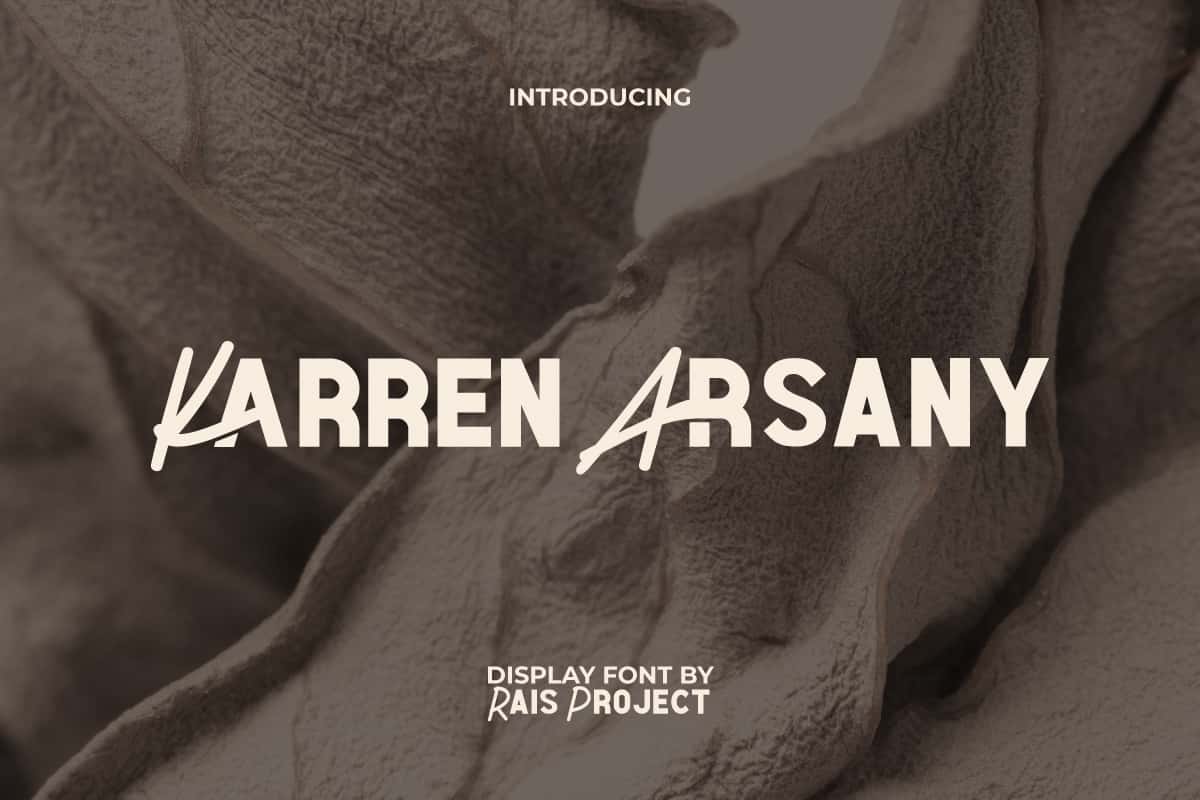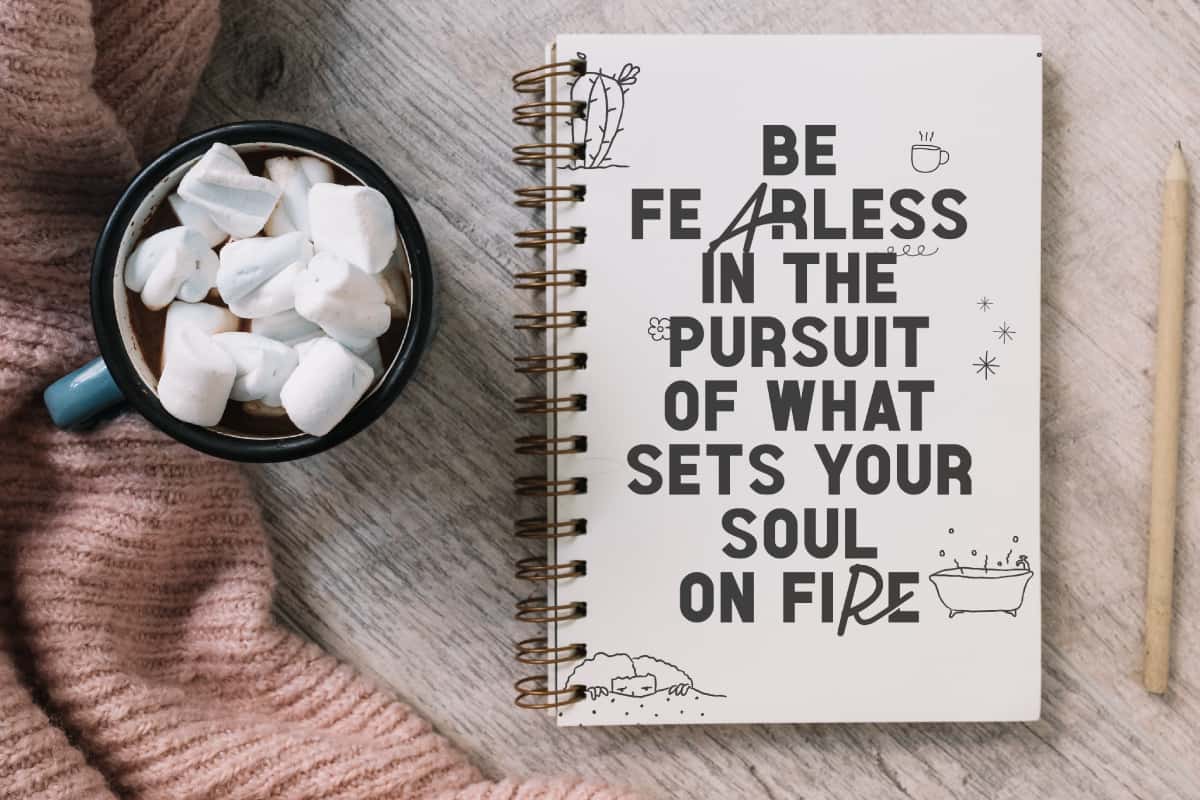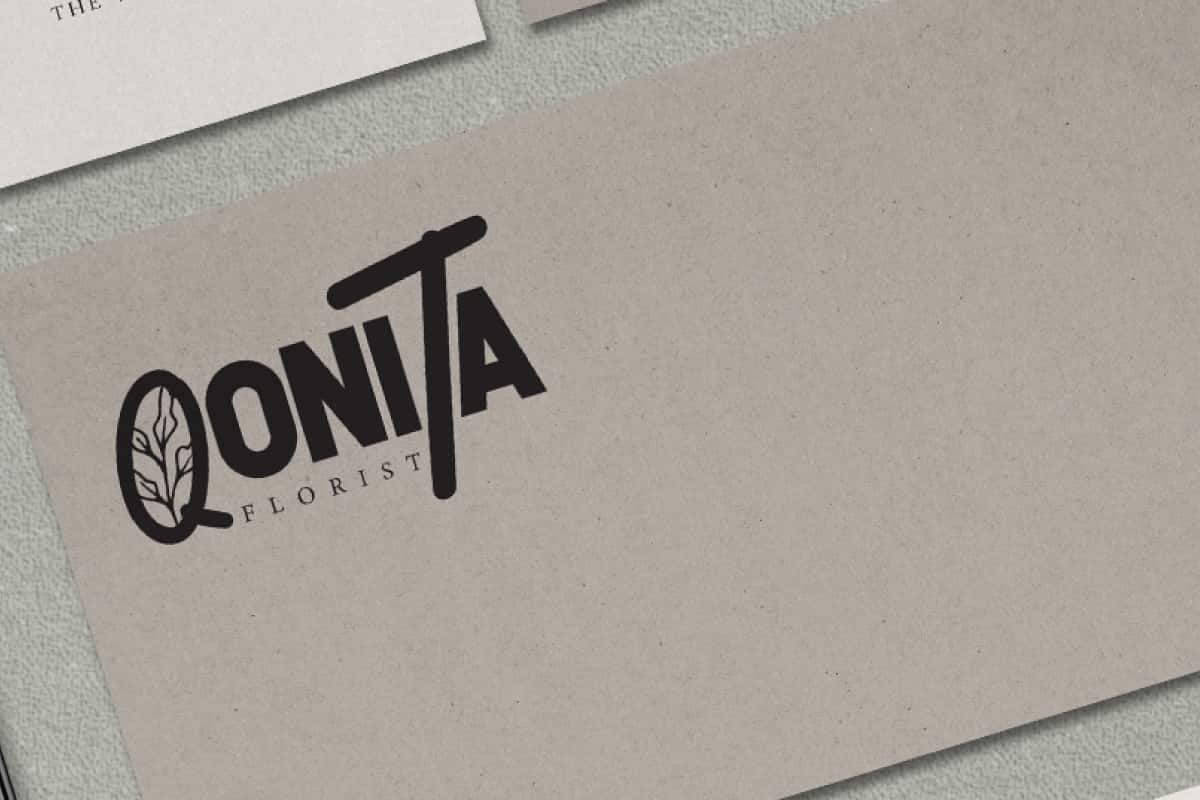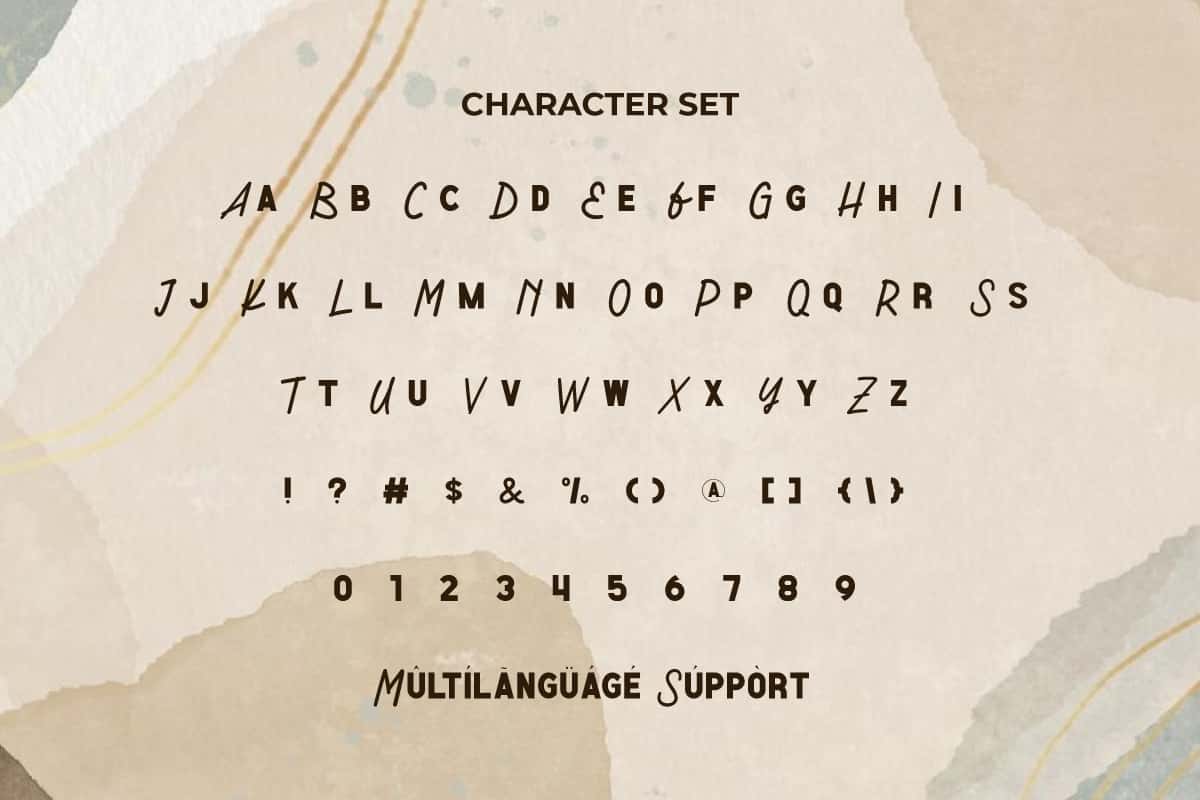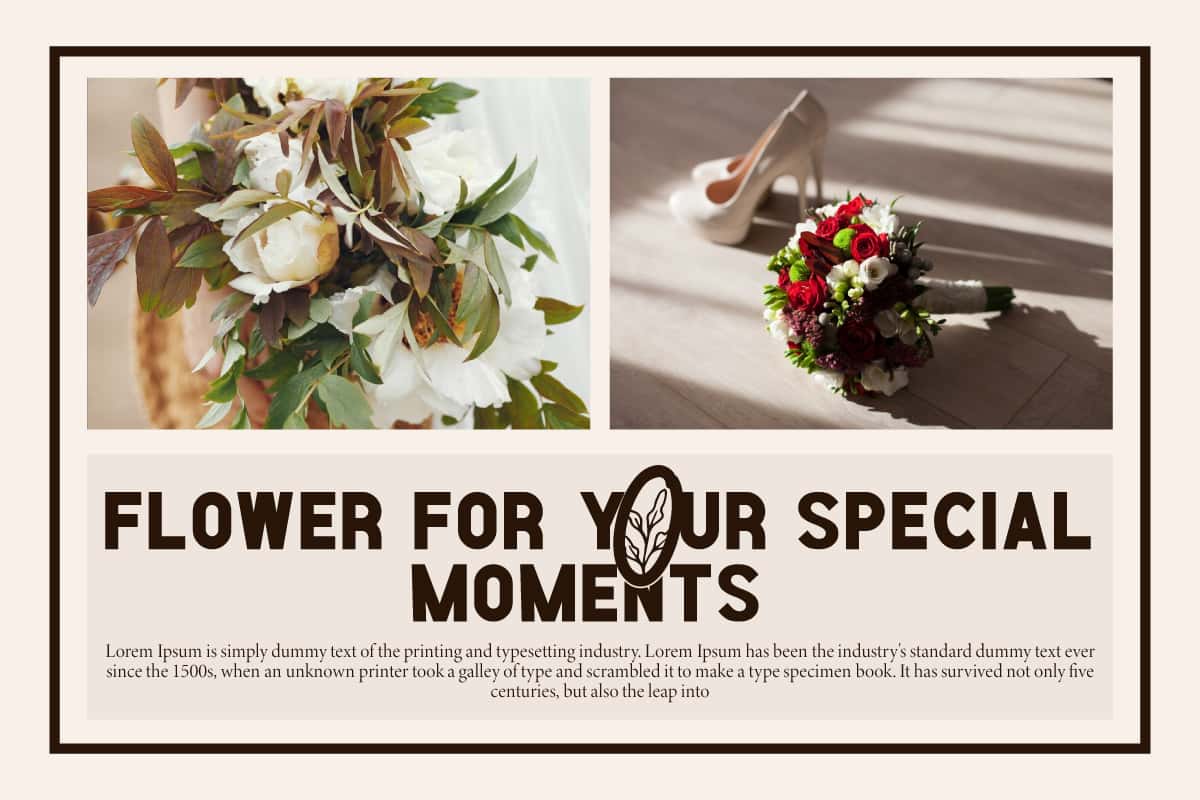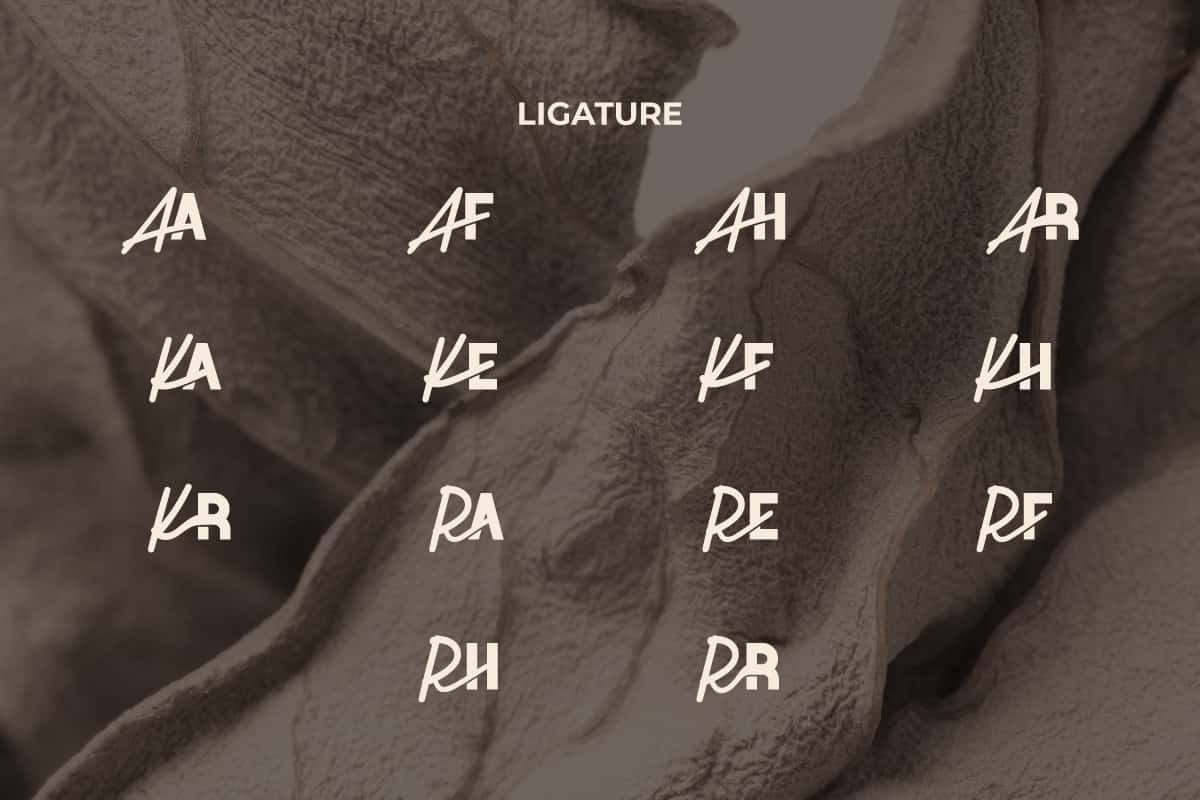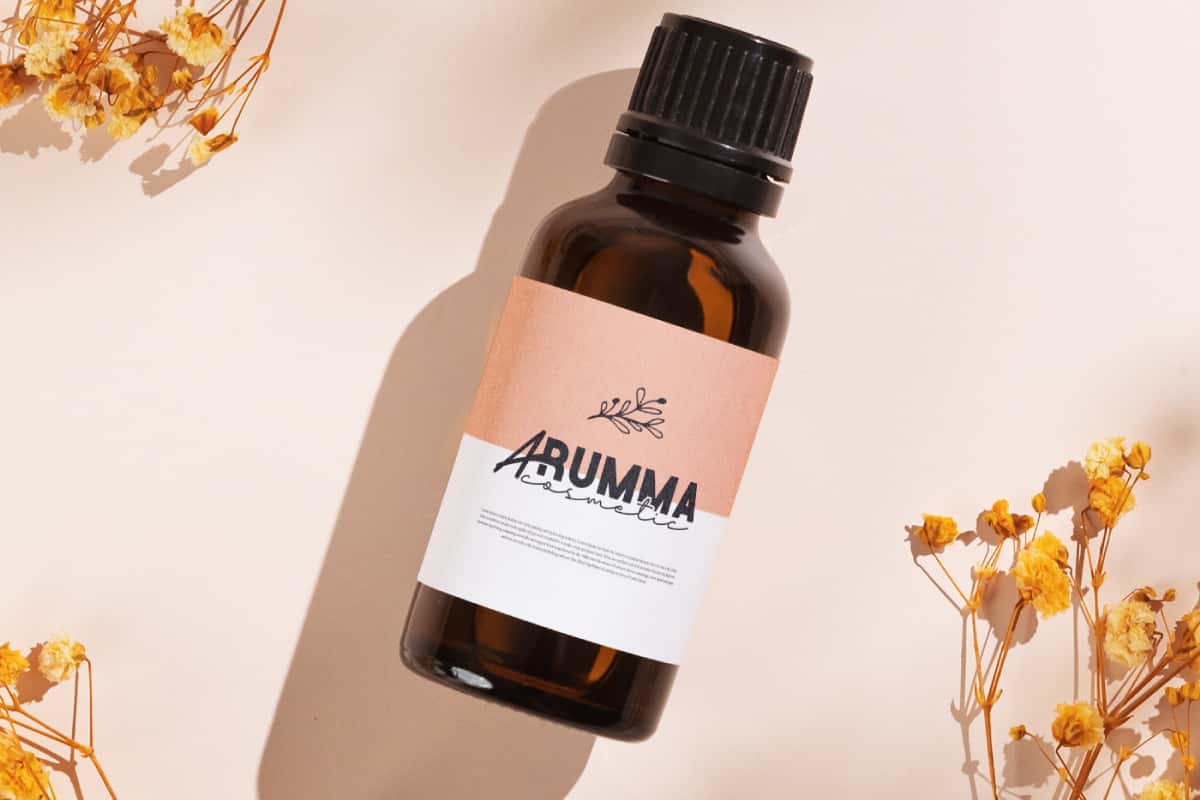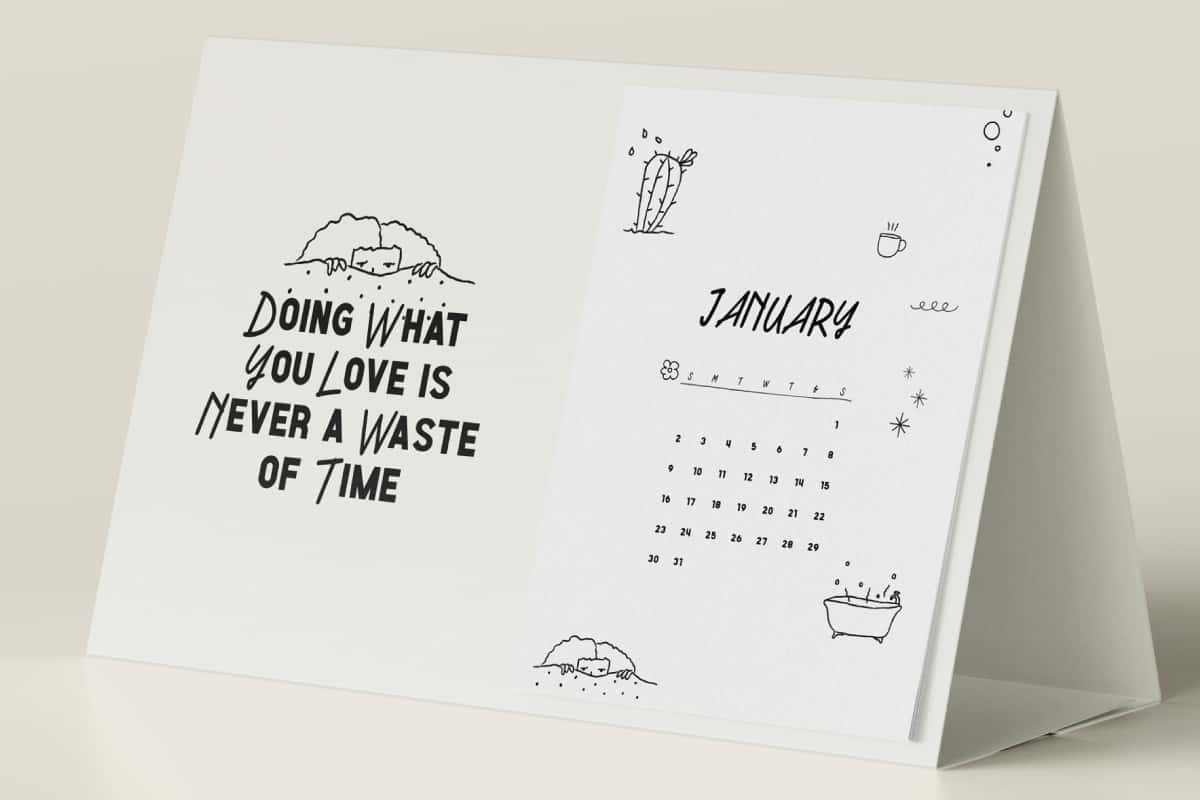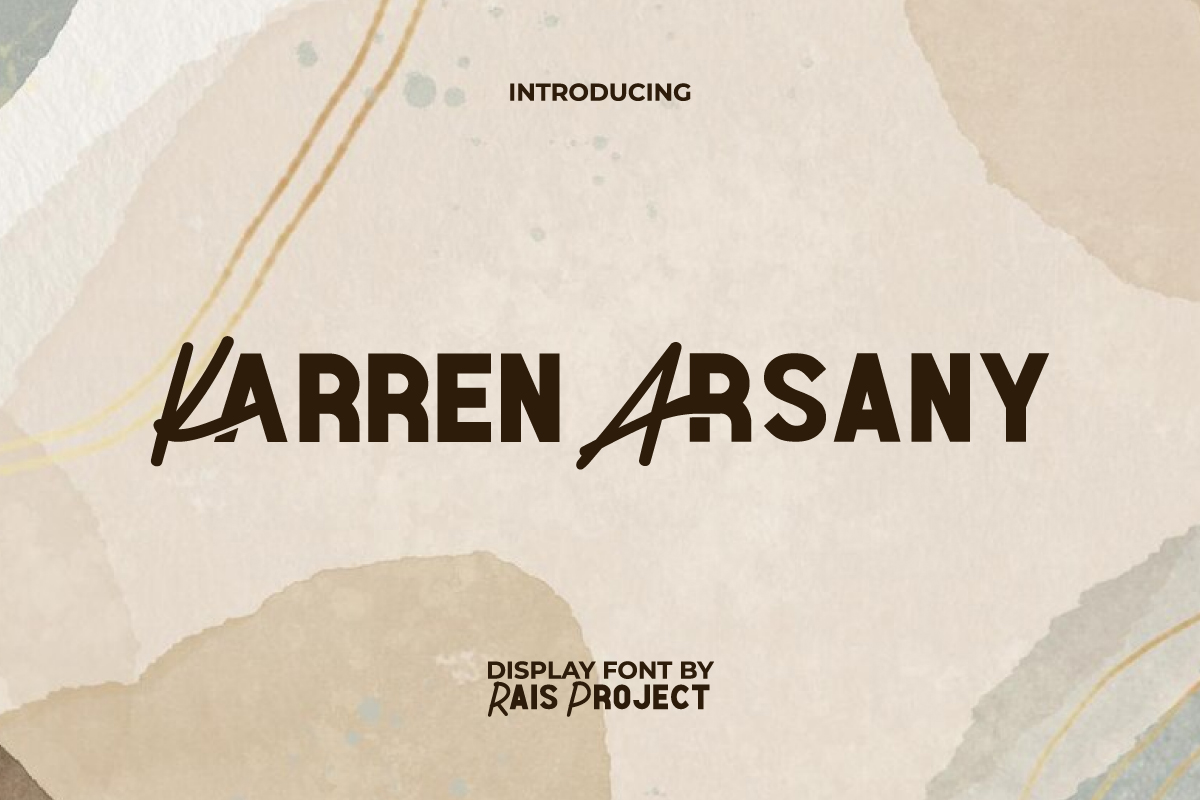
Karren Arsany Font is a 2 in 1 unique display font that can convey an strong bold style, by RaisProject. The uniqueness of this display font lies in both variaton of the font style that you can choose, giving it a different appearance. It will be great for poster, label, signage, stationery, custom design, advertisement, and more! You can see the demo font below, input any word you want so you can see what it looks like: